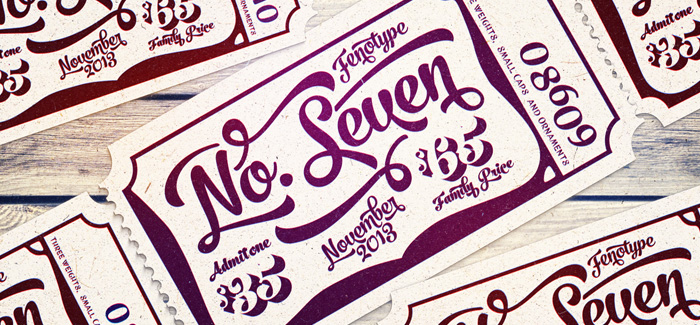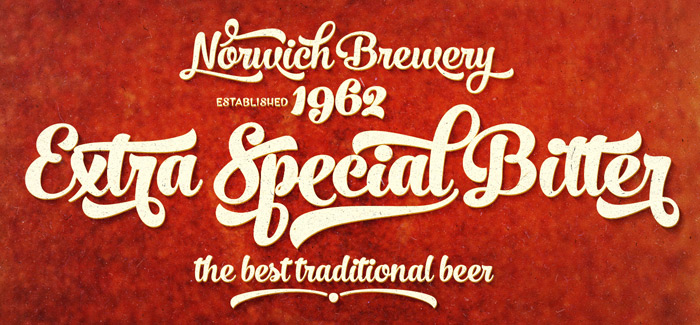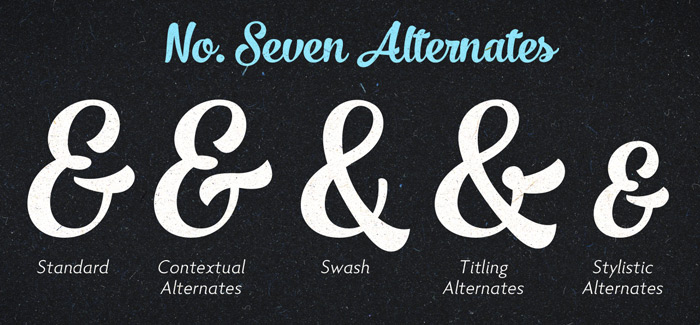
No. Seven font collection
No. Seven font by Fenotype is more likely to be called font collection rather than font family. This is a bold and even heavy brush script developed in three weights plus separate ornaments and extra font for small capitals. If your software is open type aware, then you have a treasure in your hands – Swashes, Contextual, Stylistic or Titling Alternates or Discretionary Ligatures, Tabular or Old Style – all these available in No. Seven collection. This font family has really versatile use (like the previous Alek, Voyage, Barracuda Script) – from food packages, typographic posters, t-shirts, logos to magazine covers and even on your local grocery signboard. No. Seven has very soft and friendly emotional look flavored with its authentic features of original hand made brush script.
Designers: Emil Karl Bertell
Publisher: Fenotype